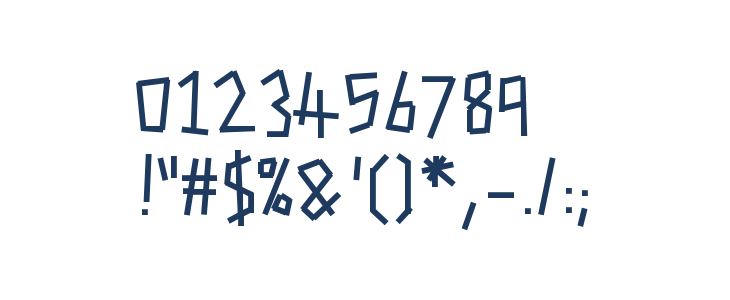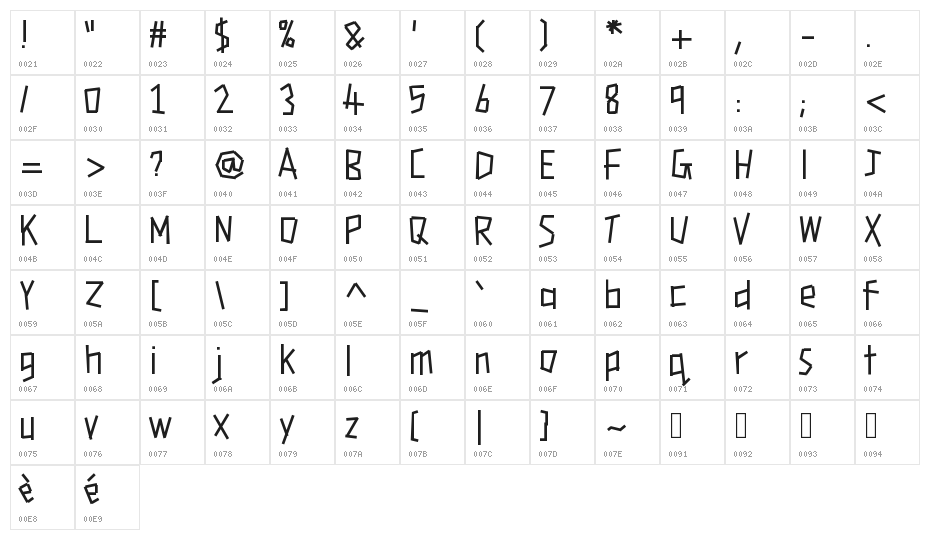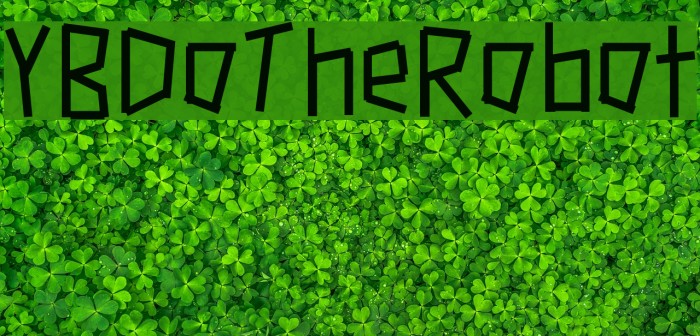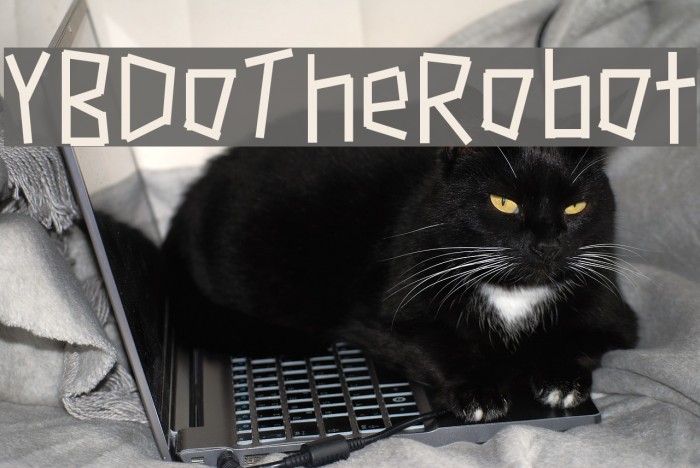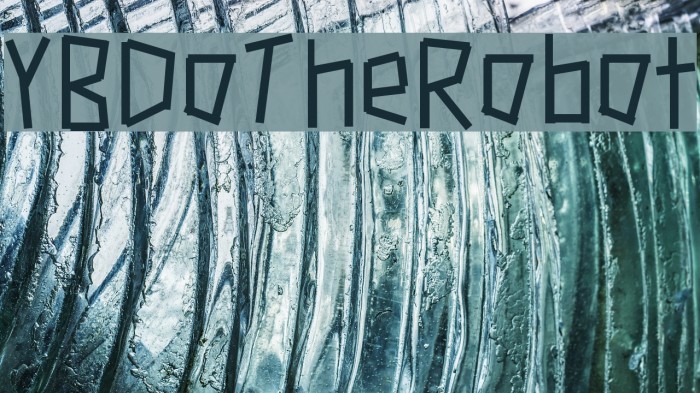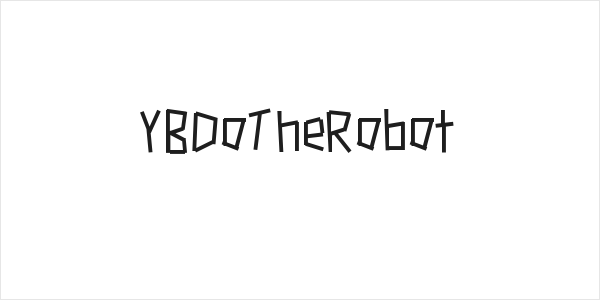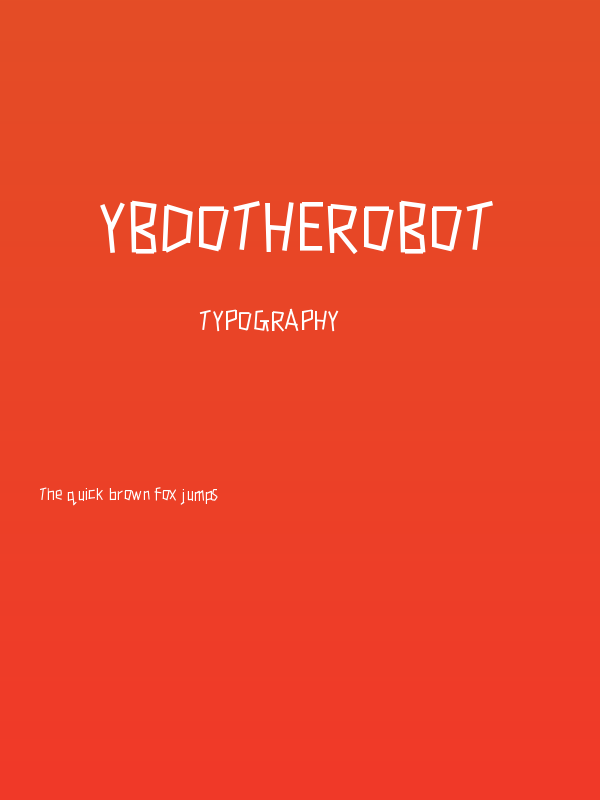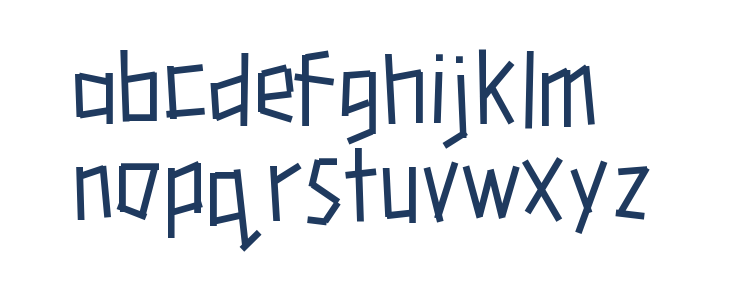
YBDoTheRobot Font
YBDoTheRobot Description
This font features a unique, angular design with a geometric and robotic aesthetic. The characters are constructed with straight lines and sharp angles, giving it a futuristic and mechanical feel. The uppercase and lowercase letters maintain a consistent style, with the lowercase being slightly more compact. Numbers and special characters follow the same angular theme, ensuring uniformity across all glyphs. The font's distinct style makes it stand out, ideal for projects that require a modern and edgy look. Its bold and structured appearance is both eye-catching and readable, suitable for various creative applications.
| Proposed Projects | Ideal for sci-fi themed designs, technology branding, video game graphics, and modern posters. |